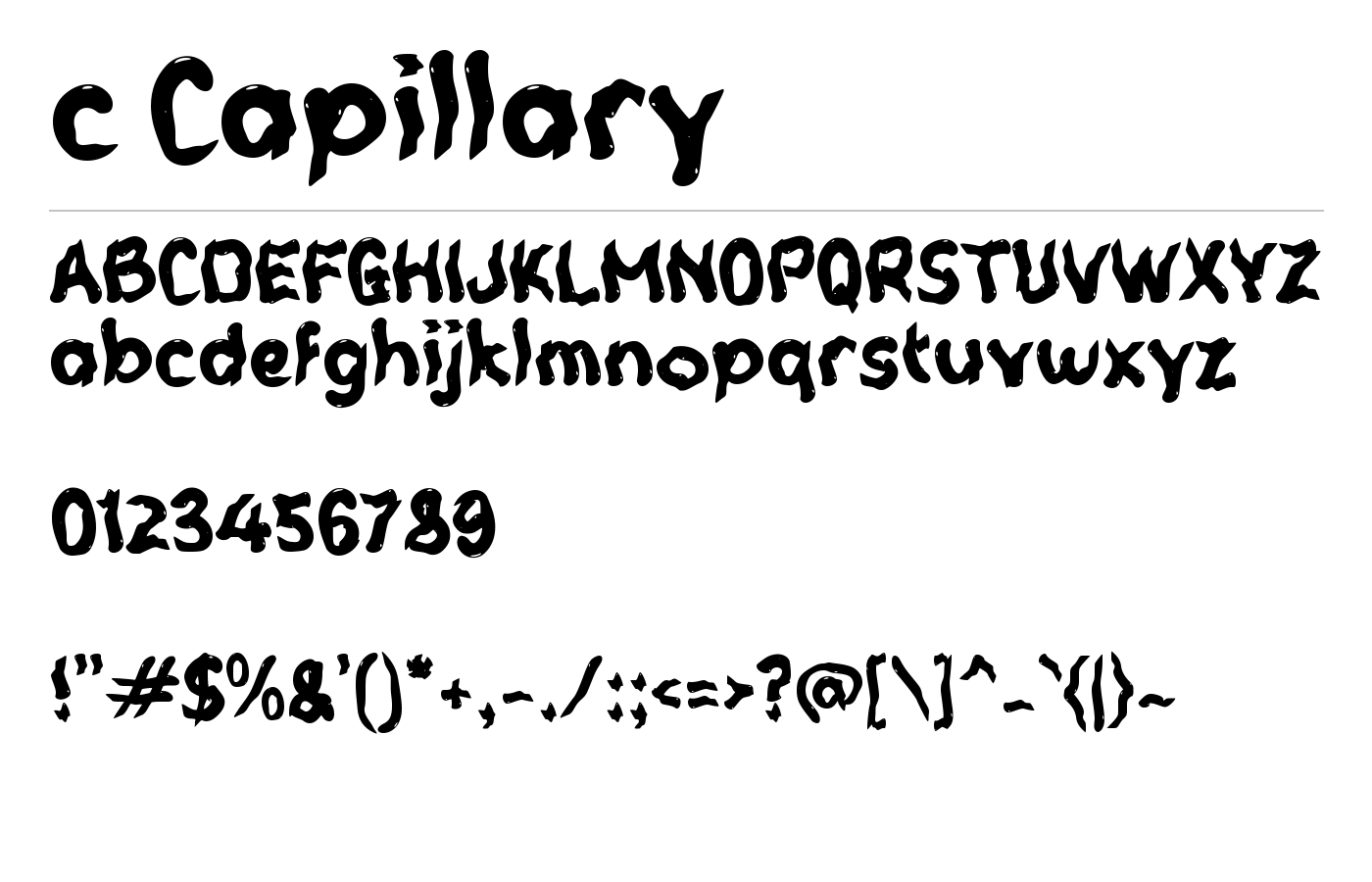
c Capillary Font is a bold, playful display typeface with a hand-drawn, organic feel. Its irregular, thick strokes and uneven shapes give it a quirky personality that works well for creative, casual, and fun projects like posters, children’s books, and branding that seeks a distinctive, approachable look. This font shines in headlines and expressive designs where a lively, unconventional style is desired.